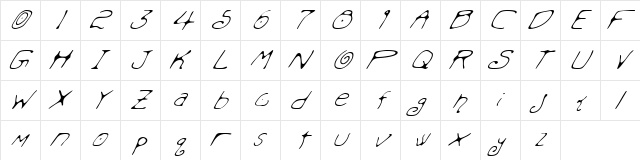
Mondo Messo Fonto Italic Regular
Design Context for Mondo Messo Fonto Italic Typeface
Mondo Messo Fonto Italic is a composed and adaptable typeface that performs quietly and consistently across a wide range of design contexts. The dynamic lean of this cut emphasises speed and emphasis in any layout.
Pro Tip: Use Mondo Messo Fonto Italic for emphasis, pull quotes, and subheadings where its slanted energy can add rhythm to the layout.